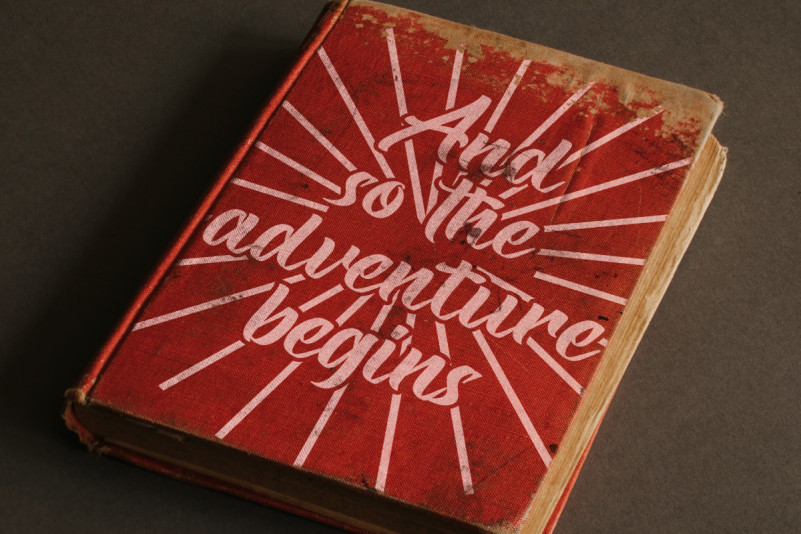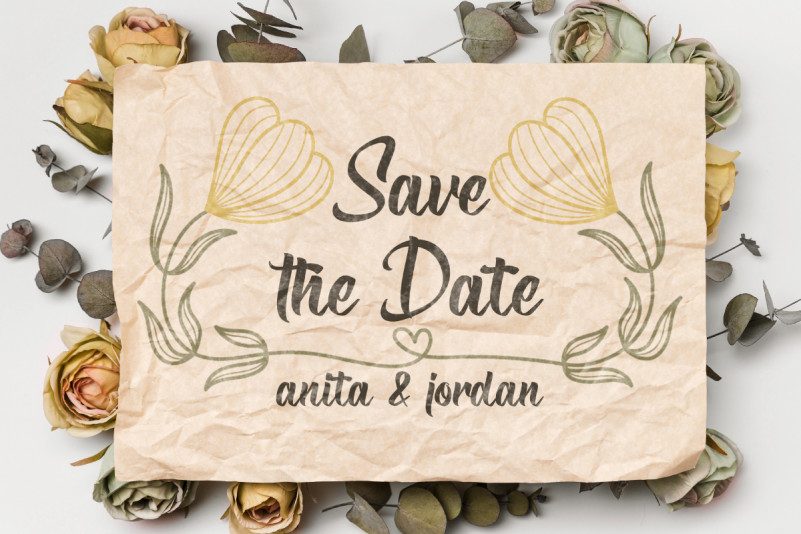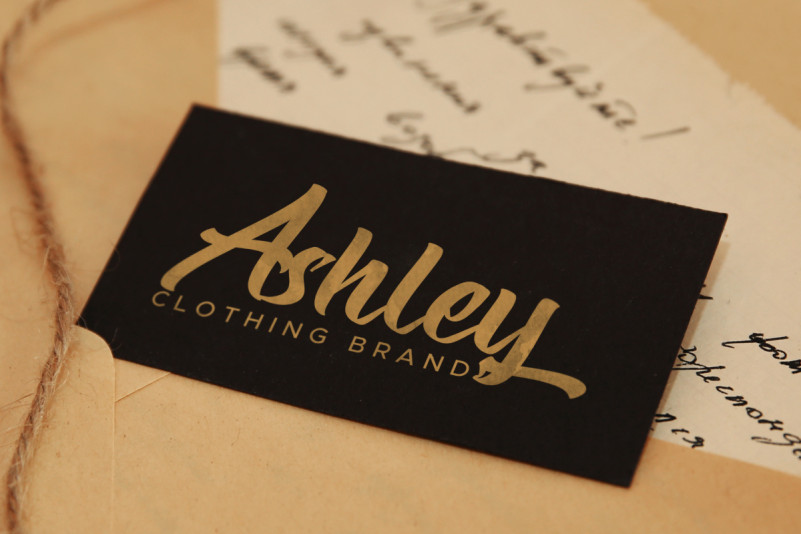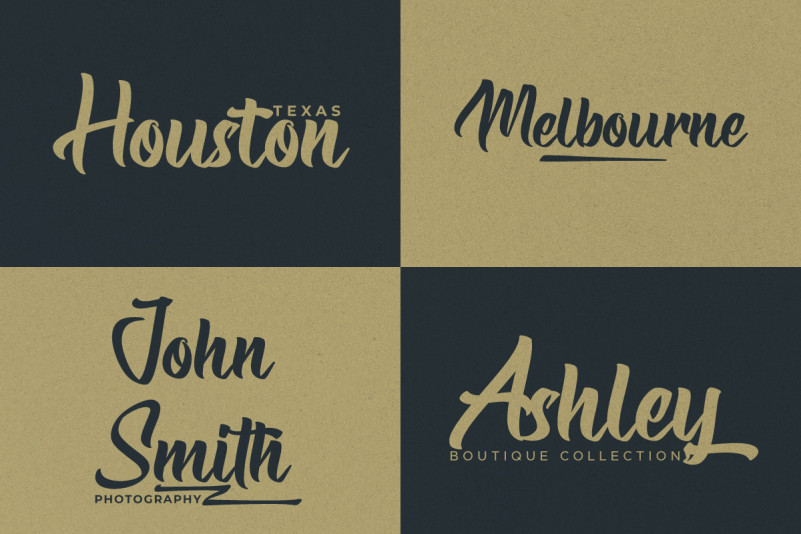
Vintagers Font
Vintagers Script Font
It’s is a vintage brush font, designed by Rais Project. The font has style that is inspired from old classic vintage posters and advertising. The font was handcrafted for any your special projects including : brandings, promotion, events, games, advertising, magazine, signage, invitation, stationery, social media posts, label, or and any projects that need unique style. The industries for this font is Events, Games, Magazine, Music, Movies, Cafe, Restaurant etc